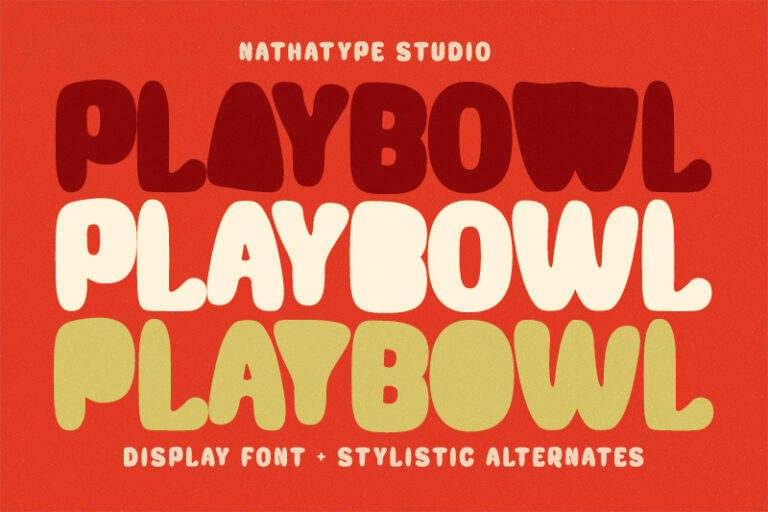
Playbowl is a chunky display font that brings bold personality and soft. The rounded letterforms create a warm, inviting tone, while the bold weight ensures your message never goes unnoticed. Its low-contrast construction keeps the design clean and consistent, allowing each character to feel cohesive and easy to read, even at large sizes. The result is a font that feels playful yet stable, modern yet full of personality. In addition, enjoy the features here.
Playbowl fits in logos, quotes, branding, posters, and many more designs. Find out more ways to use this font by taking a look at the font preview.